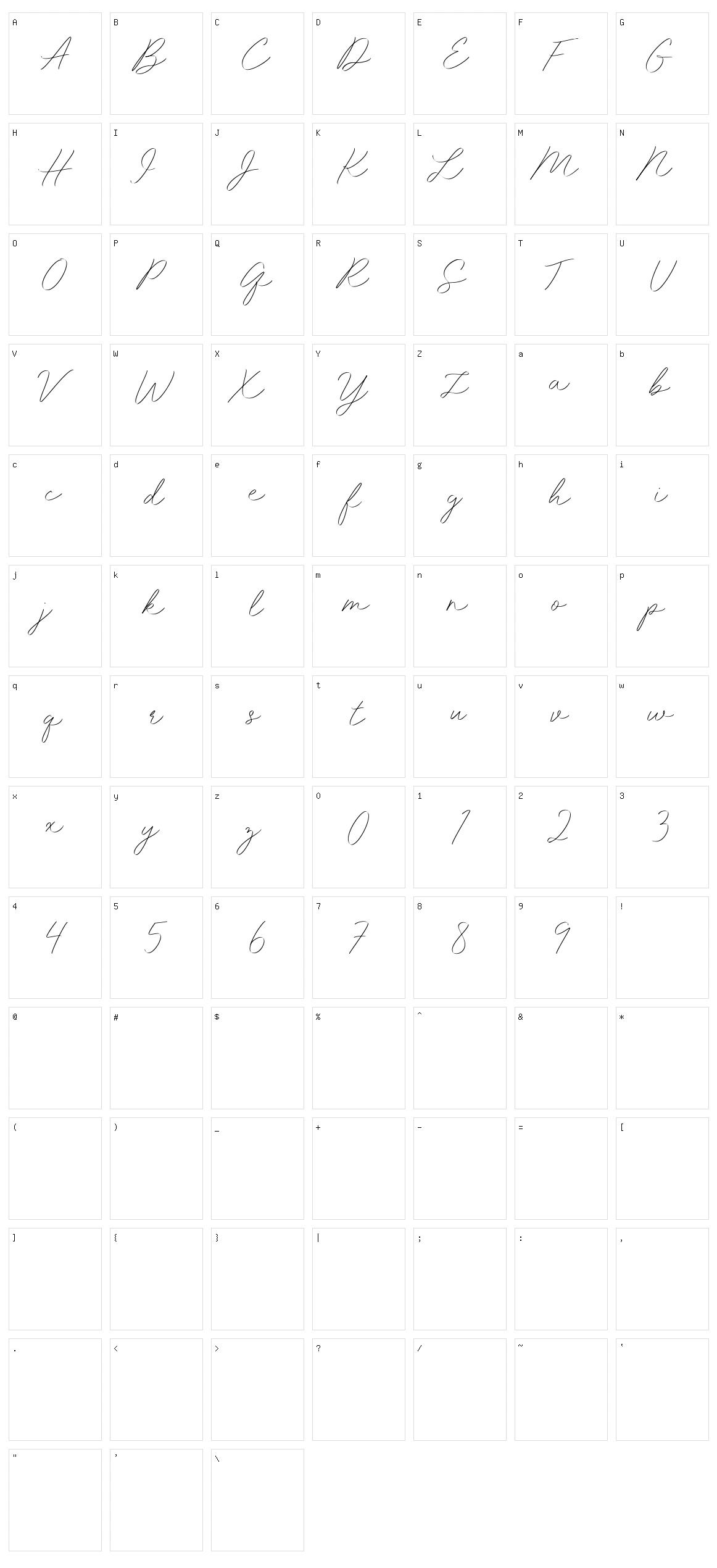
The free font Idana Luisa is carefully designed by Guiltype Studio, showcasing a thoughtful balance of creativity and usability and falls under the Script font style. When you download the ZIP file, it contains only 20.99 KB of font files, making it lightweight and quick to download. Please review the license details below to understand permitted usage and distribution rights. If license information is not available, we recommend using this font for personal projects only or contacting the author directly for commercial usage permissions.